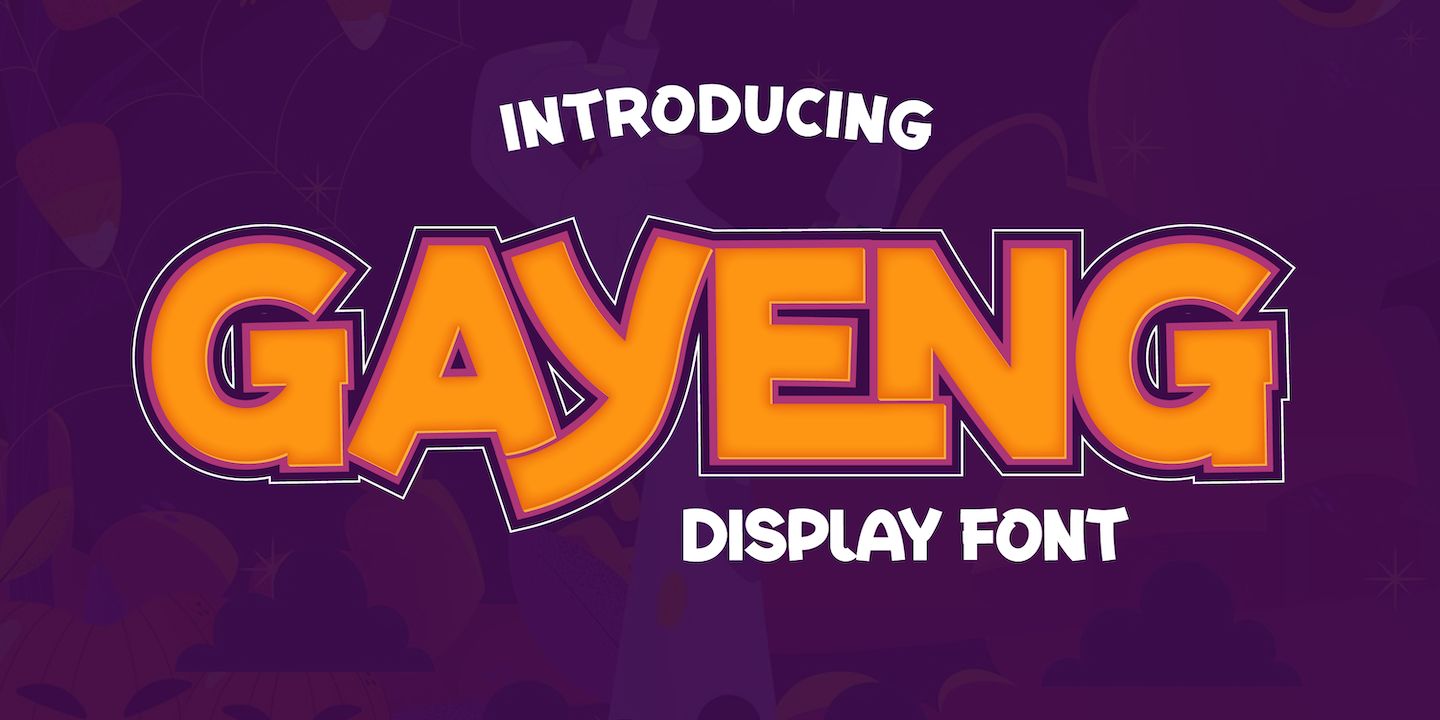
Gayeng Font is perfect for Indonesian traditional arts branding, Javanese cultural exhibitions, Southeast Asian heritage materials, traditional Indonesian wedding invitations, batik design documentation, and authentic Indonesian cultural celebrations. Its cultural character makes it ideal for Indonesian cultural centers, traditional arts organizations, Javanese gamelan groups, Indonesian heritage foundations, and any application requiring distinctive typography that conveys Indonesian cultural richness, Javanese artistic tradition, and the vibrant spirit of Indonesian folk culture and traditional celebrations.
Gayeng Font is exciting because it embodies the joyful celebration and cultural vibrancy of Indonesian traditional culture through festively crafted letterforms that reflect the communal happiness and artistic richness found in Indonesian cultural gatherings. Its celebratory proportions and Indonesian-inspired details evoke the colorful pageantry of traditional Indonesian festivals and the warm community spirit that defines Indonesian cultural identity, making it perfect for organizations preserving and celebrating Indonesian heritage. The font's festive character transforms communications into expressions of cultural joy and community celebration.
Gayeng Font family includes culturally-vibrant weight variations typically featuring Light, Regular, Medium, and Bold options with traditional styling that maintains Indonesian authenticity. The family often incorporates Indonesian symbols, Javanese ornaments, and cultural celebration elements designed for heritage applications, providing designers with comprehensive tools for creating authentic, Indonesian culture-focused typographic compositions.
When selecting Indonesian cultural celebration typography solutions, Gayeng Font Free Download represents an exceptional choice for Southeast Asian heritage and festival projects. This vibrant typeface brings instant Indonesian cultural authenticity to any design, making it invaluable for Indonesian cultural organizations, traditional arts groups, and heritage celebration planners honoring Indonesian traditions. Whether you're developing Indonesian cultural festival materials, creating traditional arts exhibition graphics, or designing Indonesian heritage celebration campaigns, Gayeng Font provides the cultural vibrancy and Indonesian authenticity essential for celebrating Indonesian cultural richness in today's multicultural Southeast Asian marketplace.